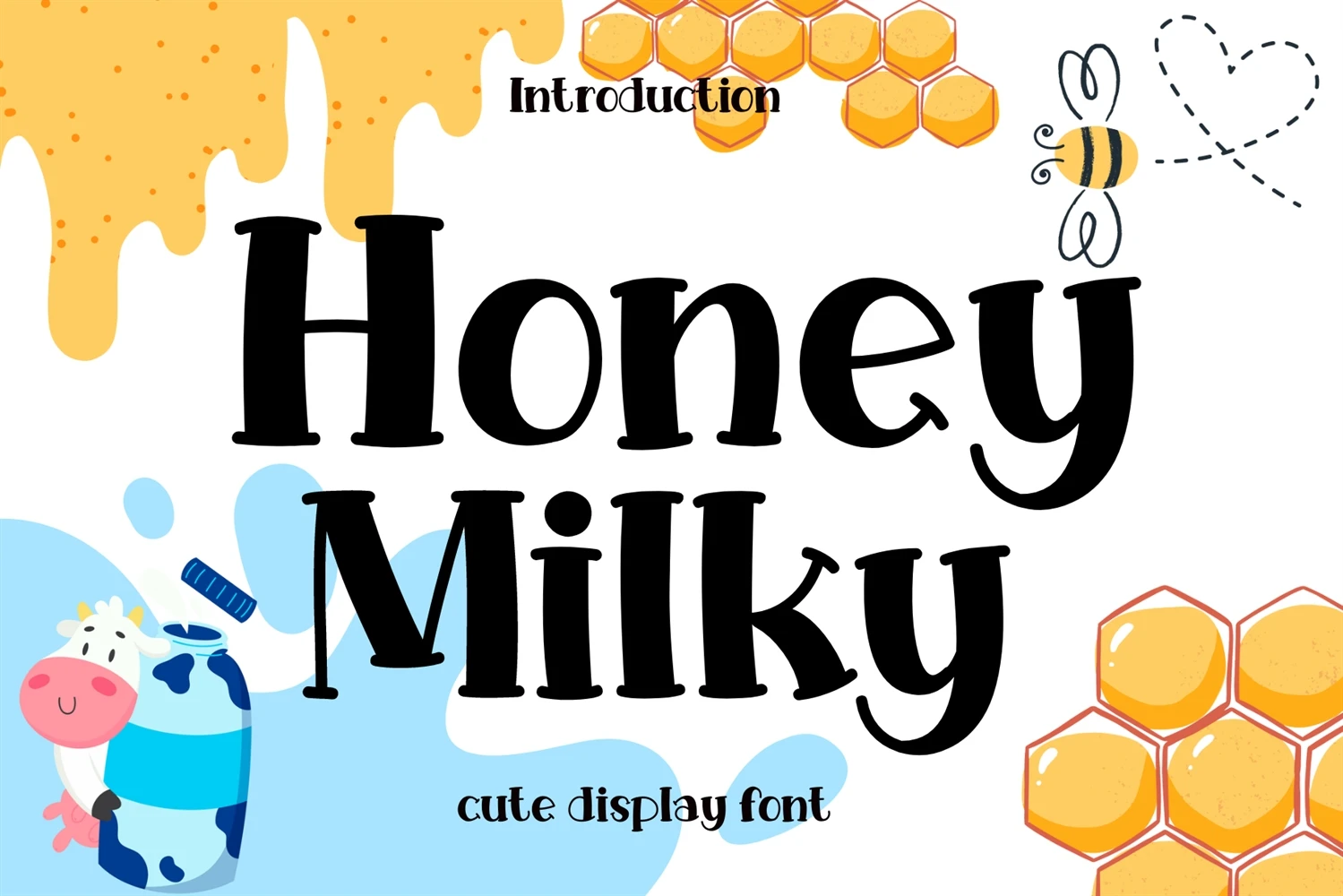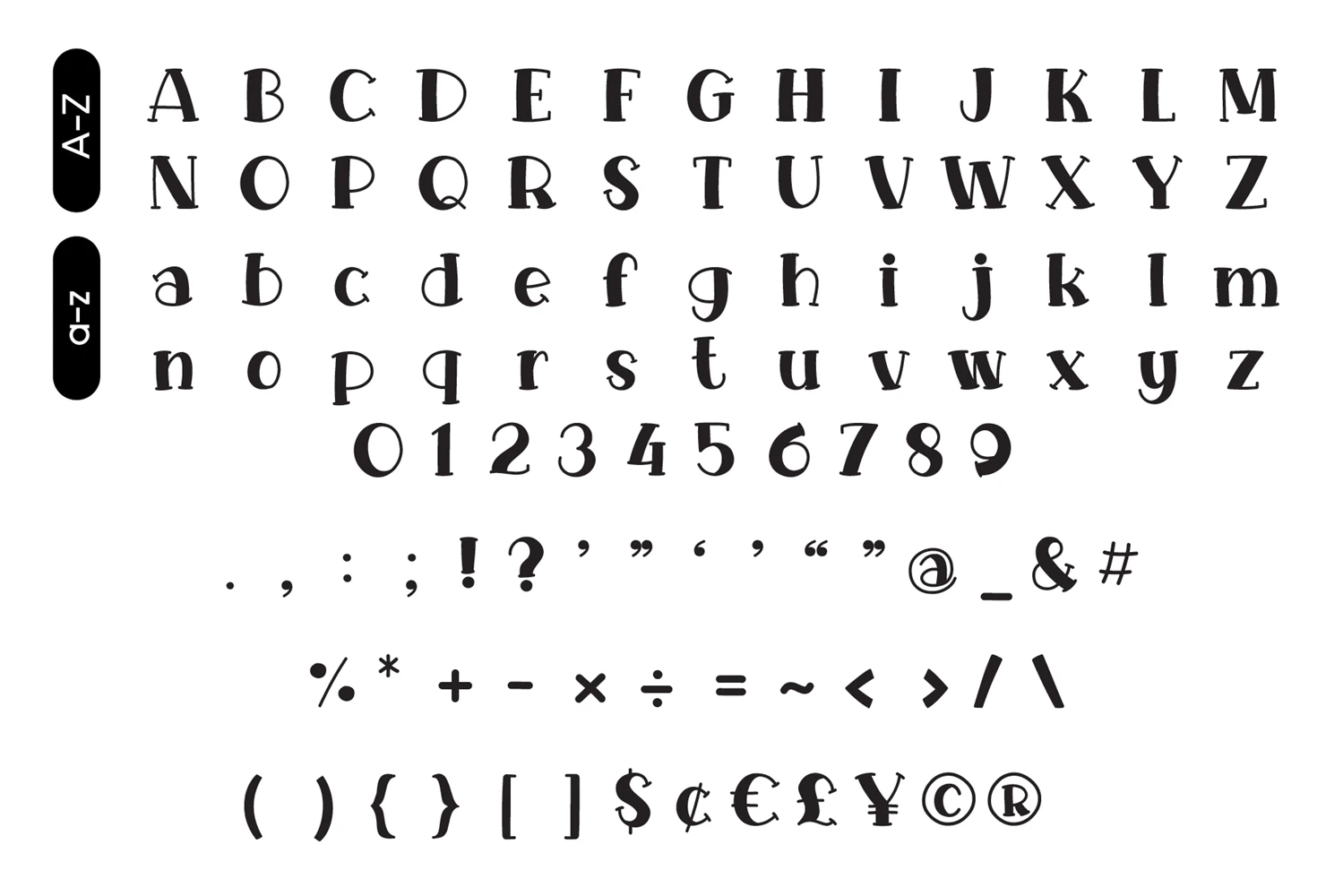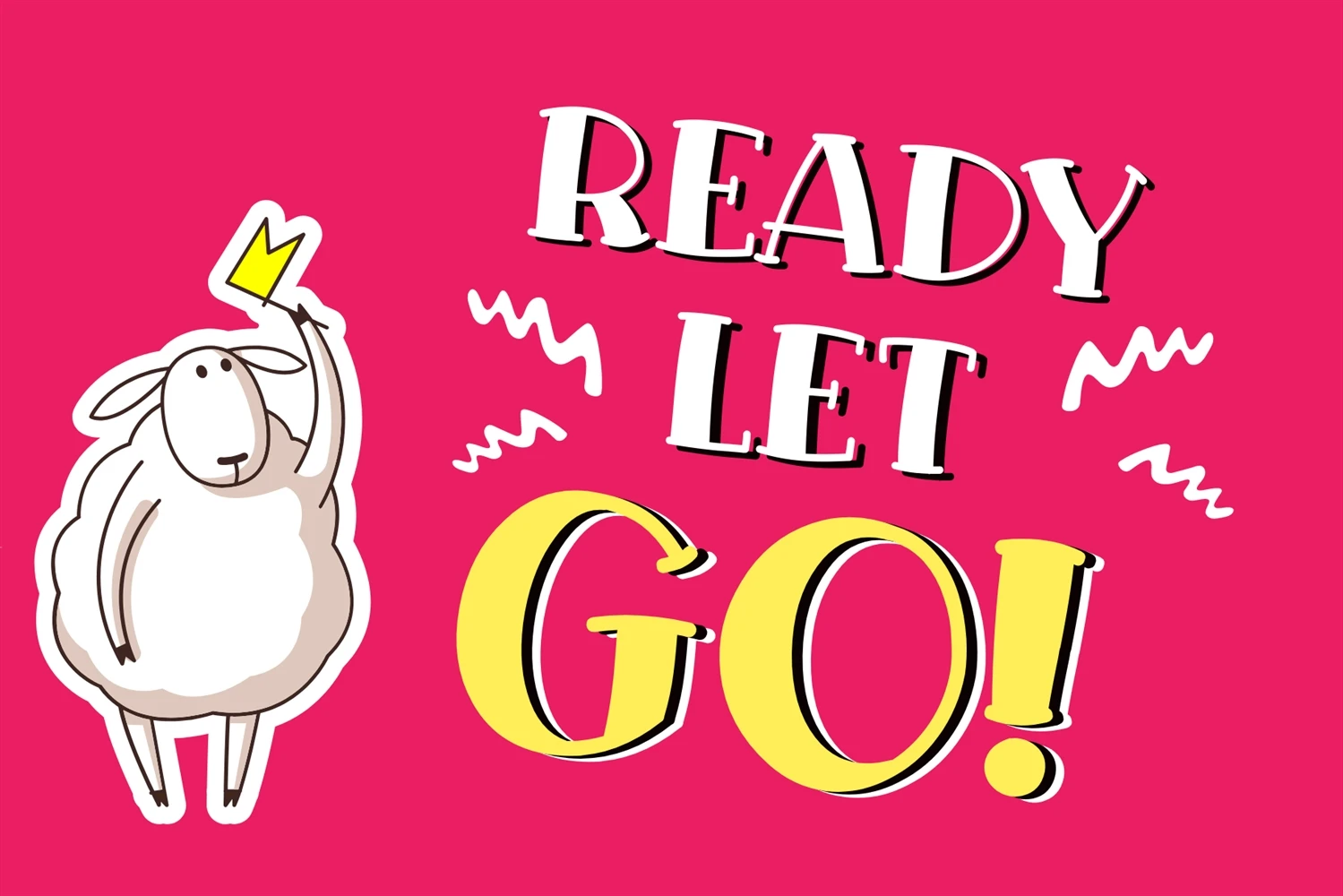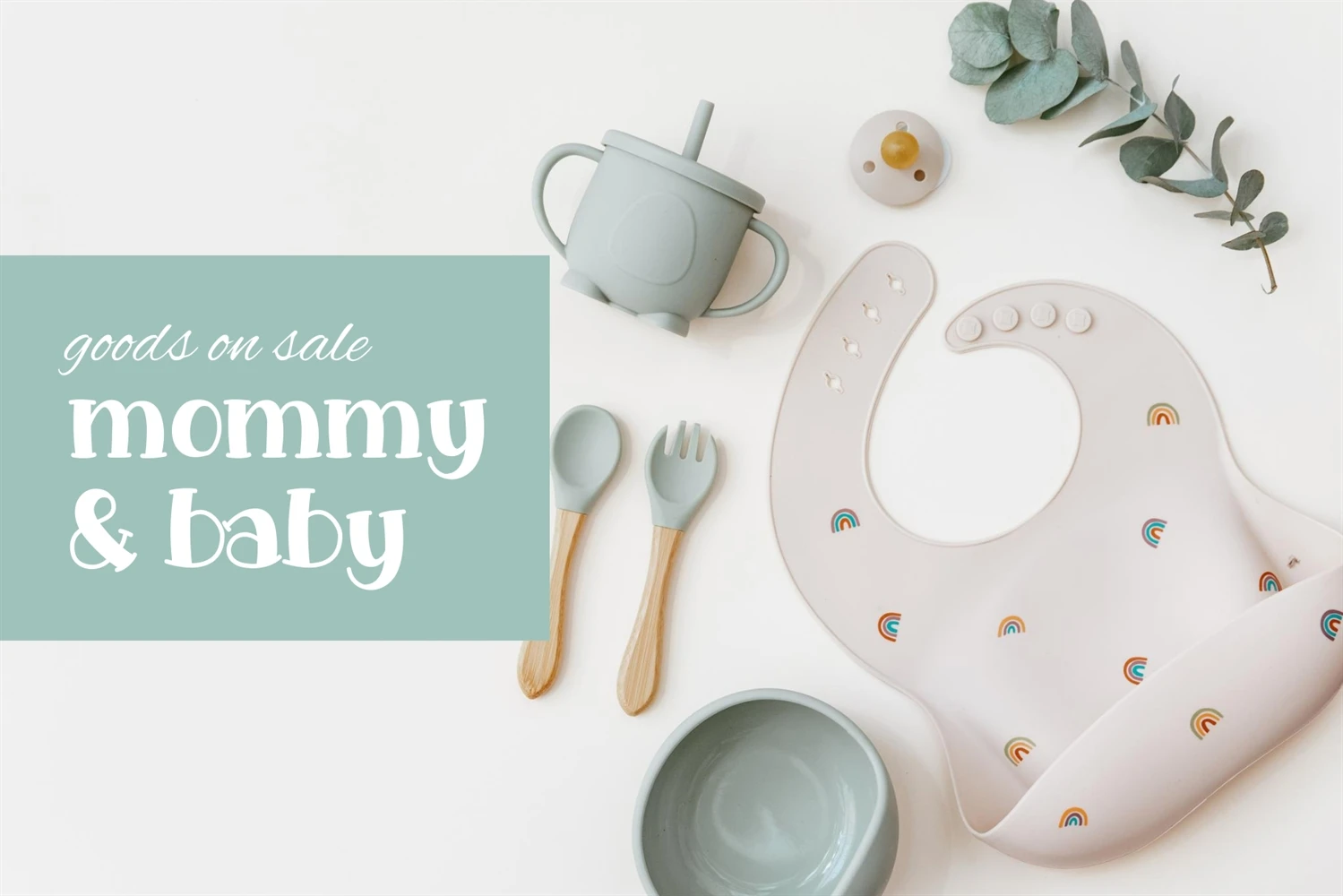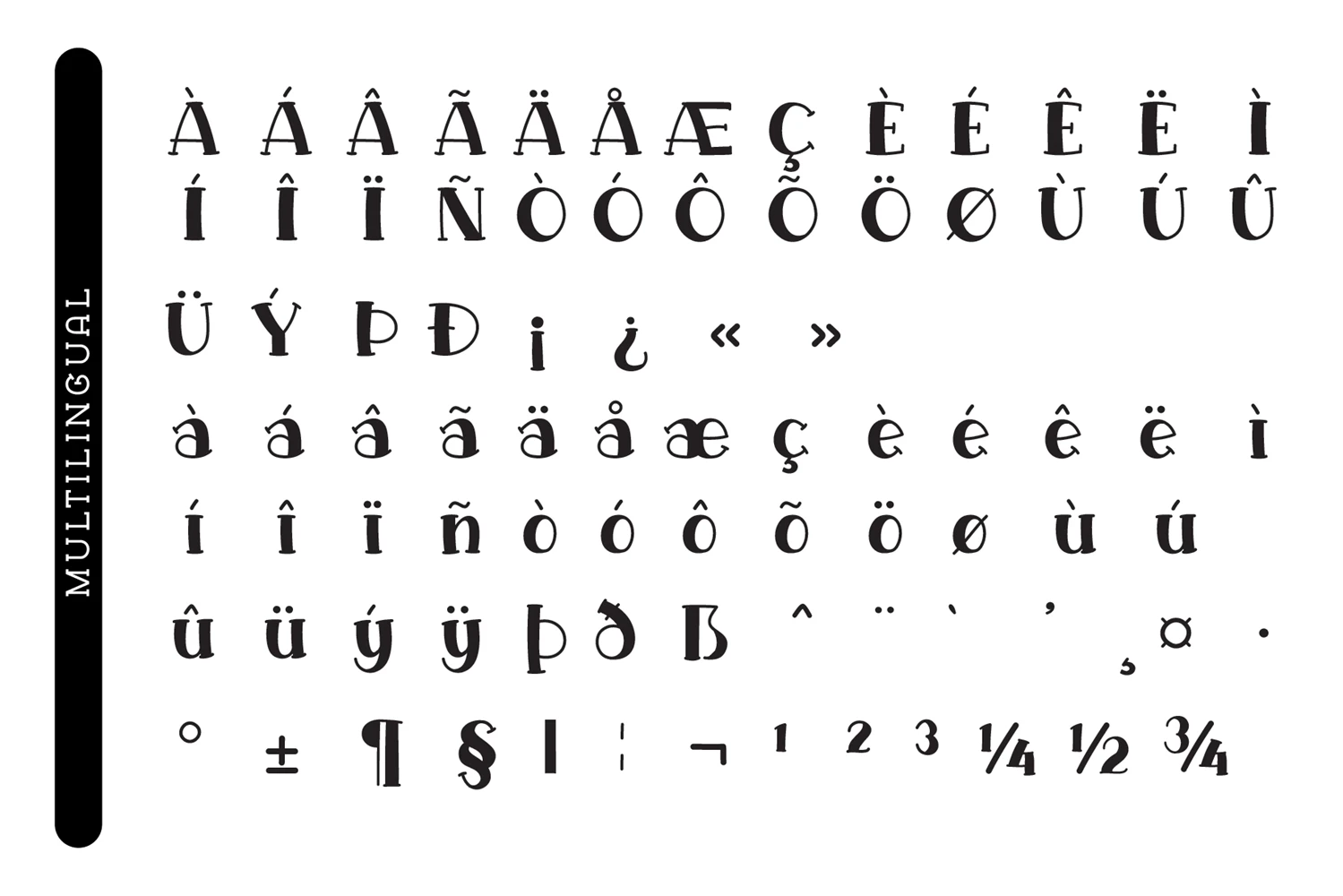
Honey Milky font is a handwritten font designed to look cute, bright, and fun. You can use it for various projects, such as blog posts, logos, branding, ads, invitations, greeting cards, planners, photo albums, decorations, and much more.